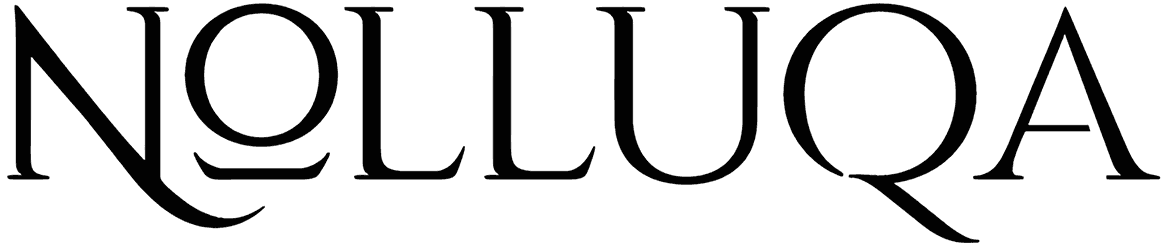
Nolluqa Font
The first time your customers look at graphic content such as posters, magazines, presentations, stationery, and flyers that are designed with the help of a serif font such as Nolluqa, they will be thunderstruck by its delicacy, confidence, trustworthiness, and elegance. While it doesn’t support lowercase letters, it offers you two distinctive versions of uppercase letters, so that shortage would be neglected.